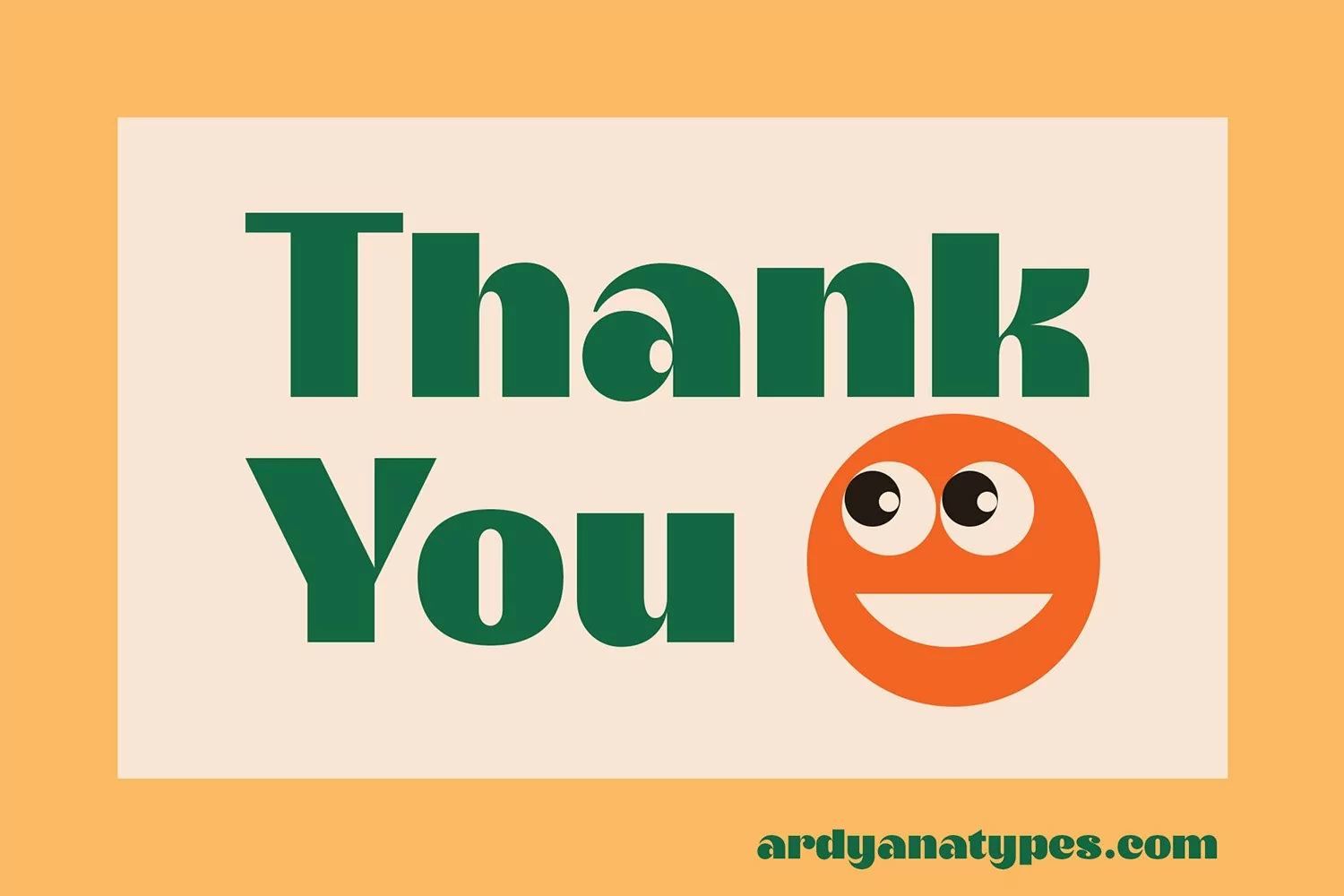
Choco Bold - Decorative Typeface
Chocolate is a lovely and delicious food; many people almost love chocolate. As well as sweet, pleasing to the eye fonts, making all designs look elegant and fun. To introduce it, there is Choco Bold, a typeface designed for sweet and cheerful design needs. Choco Bold has a firm impression that makes it easy to use for all conditions, such as business cards, book covers, branding, food packaging, and much more that Choco Bold can do. Choco Bold also comes with various ligatures and alternatives to give different styles and supports all languages. So feel free to use it.